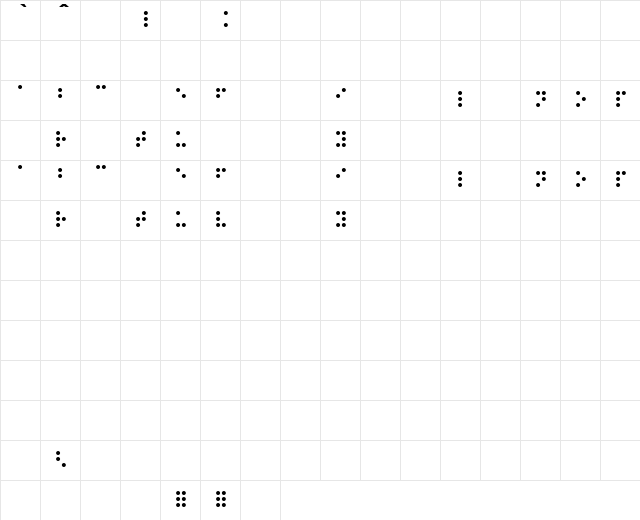
XBraille E.JALLY Regular
Design Context for XBraille E.JALLY Typeface
XBraille E.JALLY takes a measured approach to typography — its balanced proportions and neutral character make it a reliable workhorse for both digital and print work.